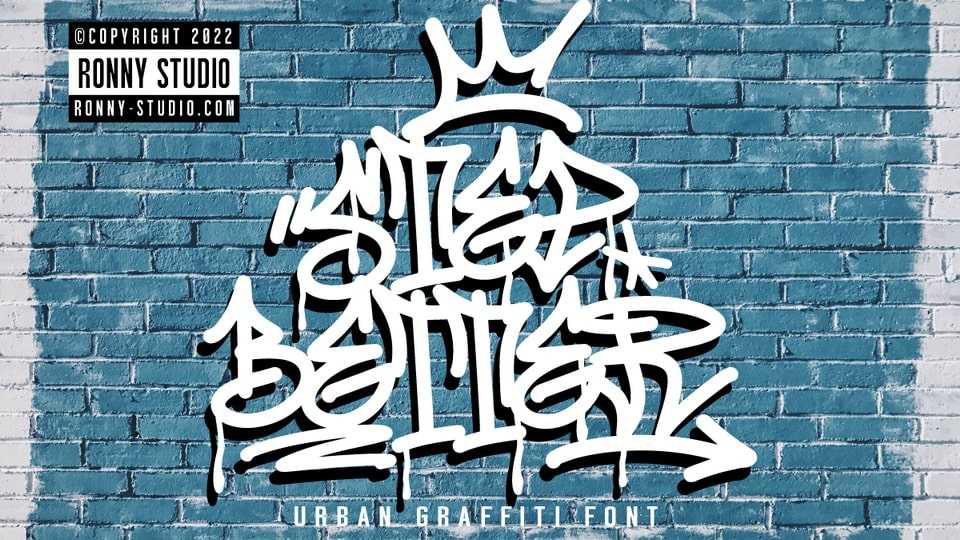
Download Step Better font, a hand lettered typeface inspired by street graffiti markings. Step Better comes with the iconic round tip markers, this style is often used by several graffiti artists around the world because of its very unique style, very fun to write on markers.